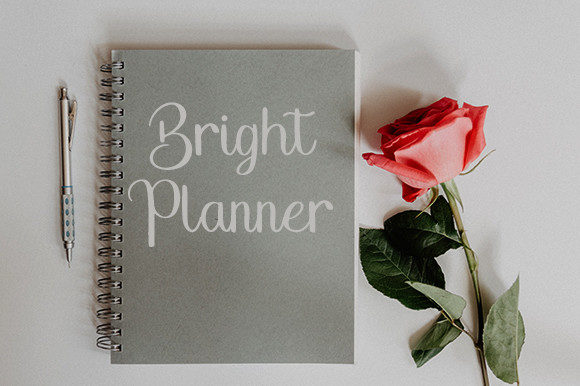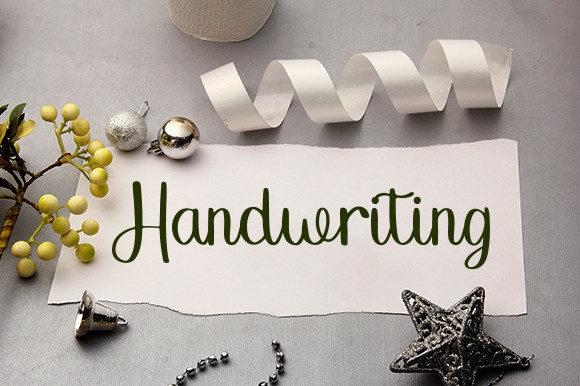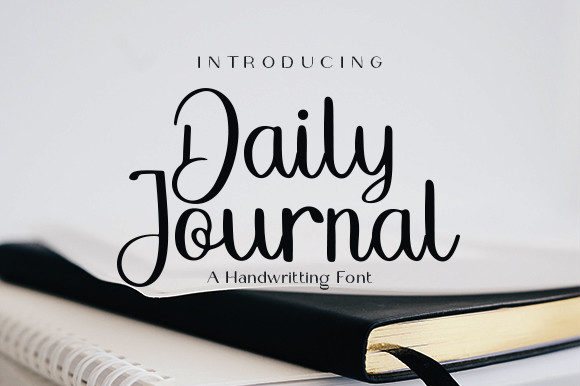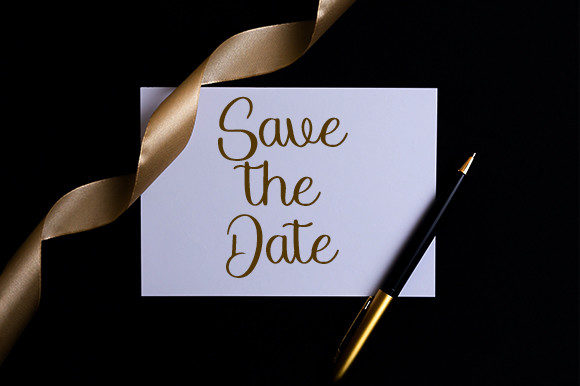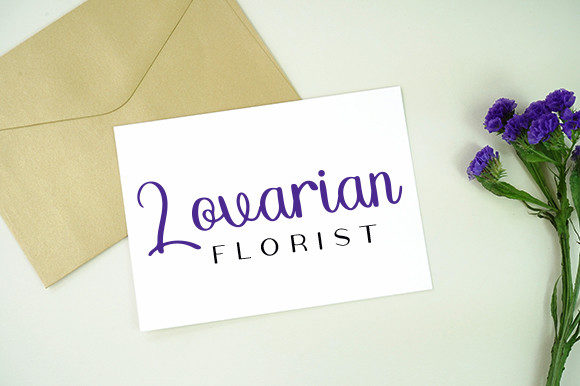
Discover the Elegance of Daily Journal Font: A Script Typeface for Creative Projects
In the world of typography, fonts play a crucial role in conveying the tone and personality of a brand, product, or creative project. Among the numerous font styles available, script typefaces have gained immense popularity for their elegance and sophistication. One such font that has caught the attention of designers and crafters is the Daily Journal Font. In this article, we’ll explore the features, benefits, and uses of this beautiful script typeface.
What is Daily Journal Font?
Daily Journal Font is a script type font that has been crafted with meticulous attention to detail. The creator of this font has carefully considered every curve and distance between letters to produce a high-quality result. The outcome is a stunning script typeface that exudes elegance and sophistication.
Characteristics of Daily Journal Font
So, what makes Daily Journal Font stand out from other script typefaces? Here are some of its notable characteristics:
- Unique Letterforms: Daily Journal Font features unique and stylish letterforms that are designed to make a statement. Each letter is carefully crafted to ensure that it looks great in any context.
- Perfect Spacing: The font has optimal spacing between letters, which ensures that the text looks clean and easy to read.
- Elegant Flourishes: Daily Journal Font features elegant flourishes that add a touch of sophistication to any design.
- High-Quality Result: The font is designed to produce high-quality results, making it perfect for both digital and print applications.
Uses of Daily Journal Font
Daily Journal Font is an incredibly versatile typeface that can be used for a wide range of creative projects. Here are some of the most popular uses of this font:
- Wedding Invitations: The elegant and sophisticated design of Daily Journal Font makes it perfect for wedding invitations, save-the-date cards, and other wedding-related materials.
- T-Shirt Printing: The font’s unique letterforms and stylish design make it ideal for t-shirt printing, allowing you to create eye-catching and memorable designs.
- Branding: Daily Journal Font can be used to create stunning brand logos, business cards, and letterheads that reflect the elegance and sophistication of your brand.
- Stationery: The font is perfect for designing stationery, including notebooks, journals, and planners.
Benefits of Using Daily Journal Font
So, why should you choose Daily Journal Font for your creative projects? Here are some of the benefits of using this font:
- Elegance and Sophistication: Daily Journal Font adds a touch of elegance and sophistication to any design, making it perfect for projects that require a high level of professionalism.
- Versatility: The font is incredibly versatile and can be used for a wide range of creative projects, from wedding invitations to t-shirt printing.
- Easy to Read: Despite its elegant design, Daily Journal Font is easy to read, making it perfect for both digital and print applications.
- High-Quality Result: The font produces high-quality results, ensuring that your designs look great in any context.
In conclusion, Daily Journal Font is a stunning script typeface that is perfect for creative projects that require elegance and sophistication. Its unique letterforms, perfect spacing, and elegant flourishes make it a versatile typeface that can be used for a wide range of applications. Whether you’re a designer, crafter, or business owner, Daily Journal Font is an excellent choice for adding a touch of elegance to your designs.